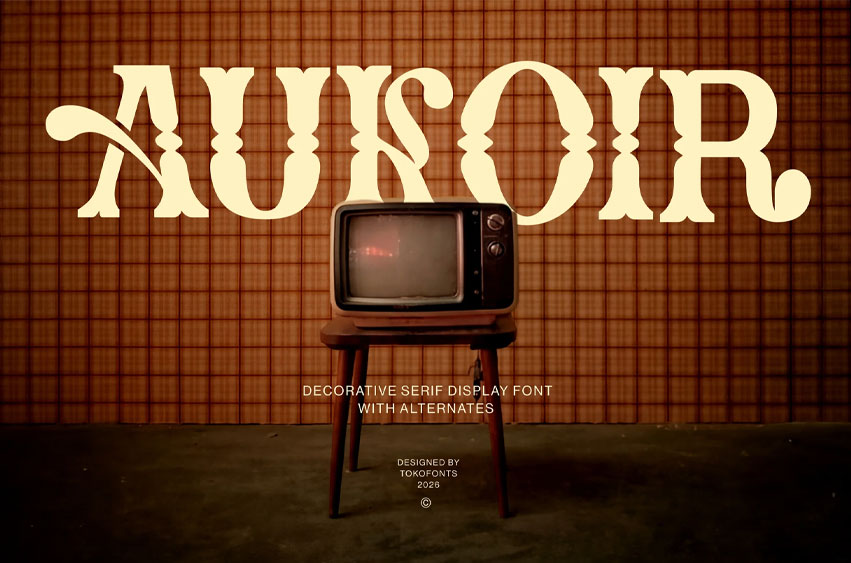
Aukoir Font is a modern and elegant display typeface designed to bring a unique and artistic touch to logo and branding projects. With its decorative serif style and distinctive letterforms, this font combines expressive character with a clean and minimal foundation inspired by helvetica, montserrat, and futura. It creates a refined yet bold presence, making it perfect for fashion brands, corporate identities, and creative visual concepts that seek a standout look.
With its versatile and eye-catching design, Aukoir font works beautifully across various applications, from stylish display headlines to playful kids concepts. The balance between decorative detail and clean structure ensures readability while maintaining a strong visual identity. Ideal for logos, branding systems, and modern design compositions, Aukoir stands among contemporary fonts that deliver elegance, creativity, and memorable impact.